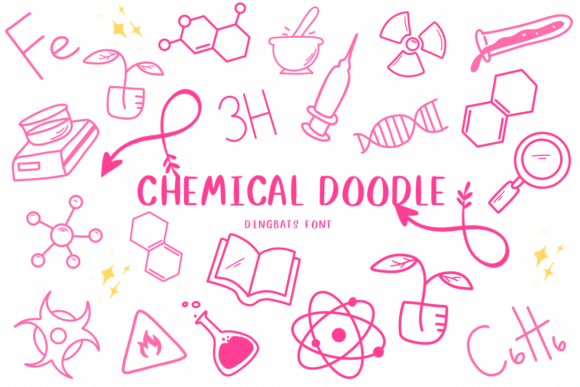
Introducing Chemical Doodle Font: Elevate Your Creative Projects with a Sketched Style
The world of typography is vast and diverse, offering a multitude of font styles to suit various creative needs. Among these, the Chemical Doodle Font stands out as a unique and versatile dingbats font that can add a personal touch to your projects. In this article, we’ll explore the features and benefits of Chemical Doodle, and how it can enhance your creative endeavors, from wedding invitations to DIY crafts and beyond.
What is Chemical Doodle Font?
Chemical Doodle is a dingbats font characterized by its distinctive sketched style. Unlike traditional fonts, dingbats fonts are comprised of symbols, icons, and decorative elements rather than alphabetic characters. Chemical Doodle, in particular, boasts a charming, hand-drawn aesthetic that gives it a warm and inviting feel.
Unlocking Creative Possibilities with Chemical Doodle
The versatility of Chemical Doodle Font makes it an excellent choice for a wide range of creative projects. Here are some ideas to get you started:
- Wedding Invitations: Add a touch of whimsy and romance to your wedding stationery with Chemical Doodle’s charming illustrations.
- DIY Crafts: Use Chemical Doodle to create personalized decorations, gift tags, and cards that showcase your creativity.
- Logos and Branding: Incorporate Chemical Doodle elements into your logo design to give your brand a unique and approachable identity.
- Decorations: From party decorations to home decor, Chemical Doodle’s illustrations can be used to create eye-catching and themed designs.
The Benefits of Using Chemical Doodle Font
So, what sets Chemical Doodle apart from other fonts? Here are some benefits that make it an attractive choice for creatives:
- Unique Style: Chemical Doodle’s sketched style gives it a distinctive look that can help your projects stand out.
- Ease of Use: As a dingbats font, Chemical Doodle is easy to use and can be incorporated into various design software.
- Customization: With Chemical Doodle, you can mix and match different illustrations to create a personalized design that suits your needs.
- Scalability: Chemical Doodle’s vector-based design ensures that it remains crisp and clear even at large sizes.
Tips for Getting the Most Out of Chemical Doodle Font
To maximize the potential of Chemical Doodle, here are some tips to keep in mind:
- Experiment with Combinations: Don’t be afraid to combine different Chemical Doodle illustrations to create a unique design.
- Play with Colors: Chemical Doodle’s illustrations look great in various colors, so don’t hesitate to experiment with different palettes.
- Mix with Other Fonts: Pair Chemical Doodle with other fonts to create a visually appealing contrast.
Chemical Doodle Font is a versatile and charming dingbats font that can add a personal touch to your creative projects. With its unique sketched style and wide range of applications, it’s an excellent choice for anyone looking to elevate their designs. Whether you’re a seasoned designer or a DIY enthusiast, Chemical Doodle is sure to inspire your creativity and help you bring your ideas to life.